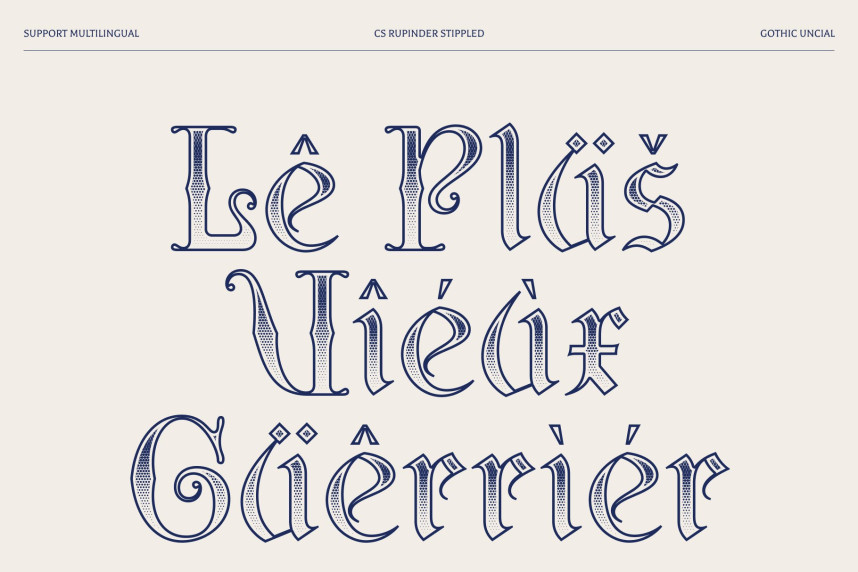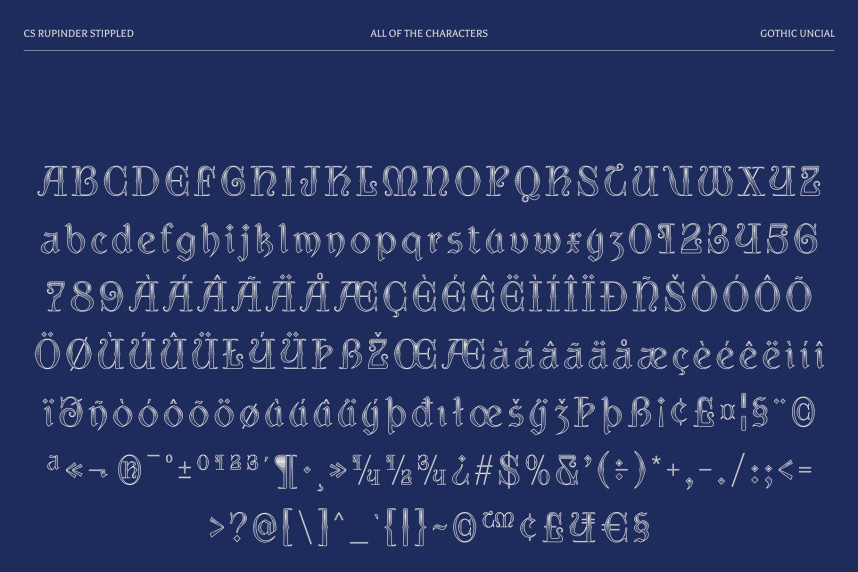
CS Rupinder Stippled Font
CS Rupinder Stippled Font – Gothic Uncial Display Font
Curved Letterforms with Gothic Stippled Elegance
This is a gothic uncial display font that merges traditional uncial structure with expressive gothic influences, now enhanced through a dense stippled (dotwork) texture. Its softly curved letterforms contrast beautifully with sharp, dramatic strokes, while the stippling effect adds a tactile, ink-etched surface reminiscent of hand-drawn manuscript illustrations and antique engraving techniques. This combination creates a striking balance between ancient elegance and artisanal texture.